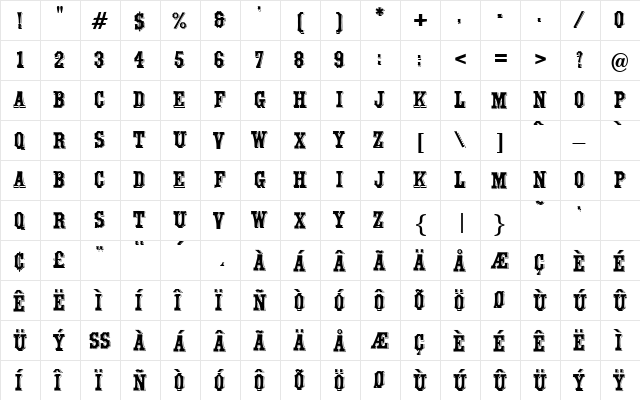
Waltham DB Regular
Design Context for Waltham DB Typeface
Waltham DB takes a measured approach to typography — its balanced proportions and neutral character make it a reliable workhorse for both digital and print work.